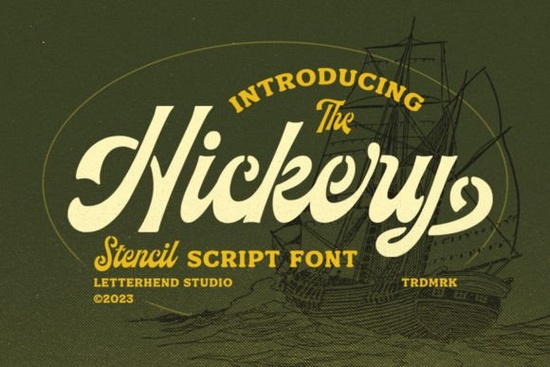
When you need a typeface that balances smooth curves with a worn, hand-stamped feel, looking into the Hickery Font is usually a smart starting point. This stencil script style keeps letterforms connected enough to read quickly, while the cut-out gaps add that rustic texture crafters and print-on-demand creators often chase. It works well for labels, event headers, and apparel prints because the design never fights against busy backgrounds or limited color palettes.
The style grew popular when makers wanted vintage aesthetics without sacrificing readability. Older brush scripts sometimes disappear on dark fabrics or small packaging. By leaving strategic breaks in the strokes, this font maintains its shape even when scaled down for business cards or up for wall art. You will notice how the slight asymmetry gives it an authentic, pressed-from-a-woodblock look rather than a perfectly polished digital finish.
What Makes This Stencil Script Different?
Decorative scripts usually lean toward either pure elegance or heavy texture. Hickery sits right in the middle. The baseline stays relatively steady, which helps lines of text stay aligned during layout work. Meanwhile, the irregular stroke widths mimic real hand-painted signage from mid-century diners or country store signs. If you have ever worked with more ornate styles like Barbie Font for script fonts, you likely noticed how those tend to demand generous spacing and large sizes. This particular design handles tighter kerning better, giving you more flexibility when fitting text into existing templates.
How Do You Actually Use It In Your Projects?
Designers typically reach for this file when they want immediate visual impact without extra graphic elements. Here are a few straightforward ways to apply it:
- Print-on-demand merch using white or metallic ink on dark t-shirts and tote bags.
- Packaging labels for artisan goods, candles, or specialty food products.
- Digital planners and printable party kits where quick scanning matters.
- Small business logos that need a heritage feel without custom logo fees.
The included uppercase letters and numbers mean you skip complex ligature editing. Simply type your message, adjust tracking slightly wider than usual, and let the negative space carry the design weight. Pair it with a clean sans-serif for subheadings if you plan to add longer paragraphs or instructions beneath the main line.
Tips For Keeping It Legible And Professional
- Limit line length. Stencil scripts lose their punch when squeezed into narrow columns.
- Avoid heavy textures behind the text. Let the cutouts remain visible by keeping backgrounds flat or lightly grained.
- Check preview at actual print size. What looks balanced on screen can blur together when reduced for stickers or patches.
- Test contrast ratios. Dark gray on cream usually reads cleaner than black on stark white.
Where Does It Fit Among Other Vintage Script Fonts?